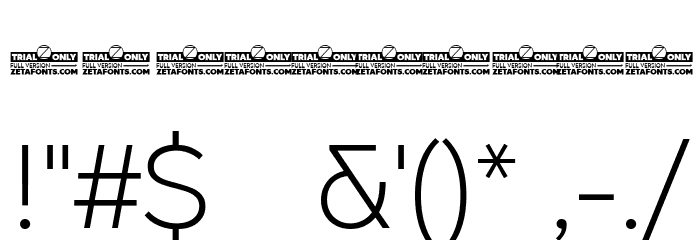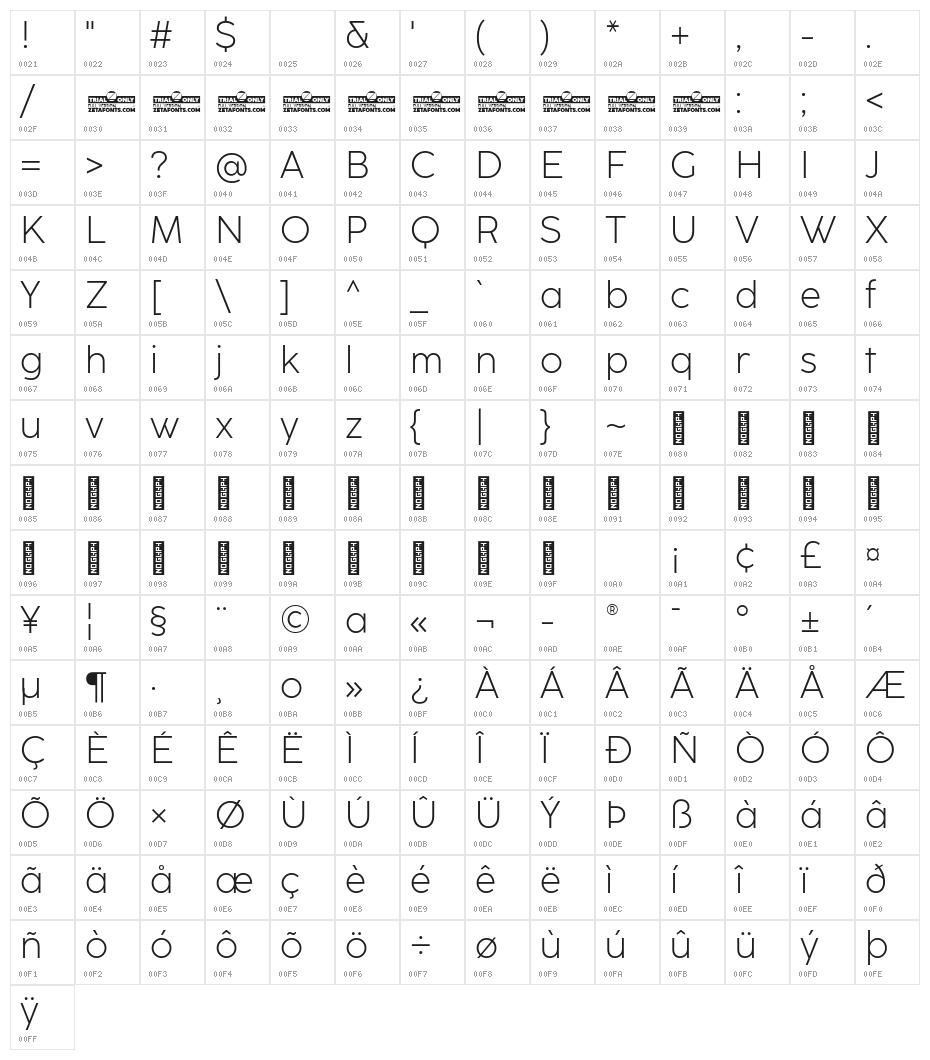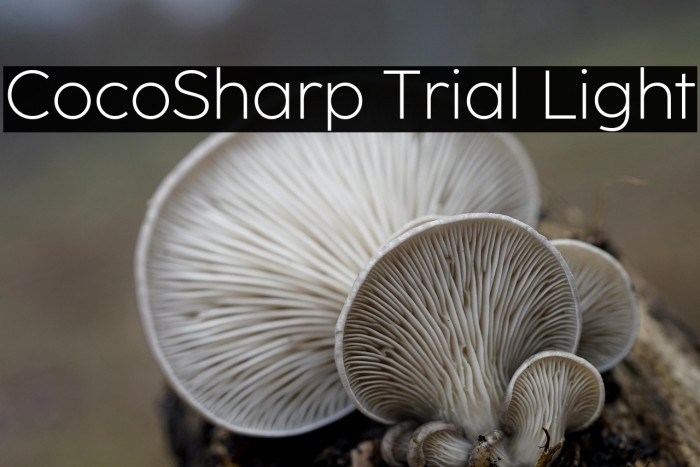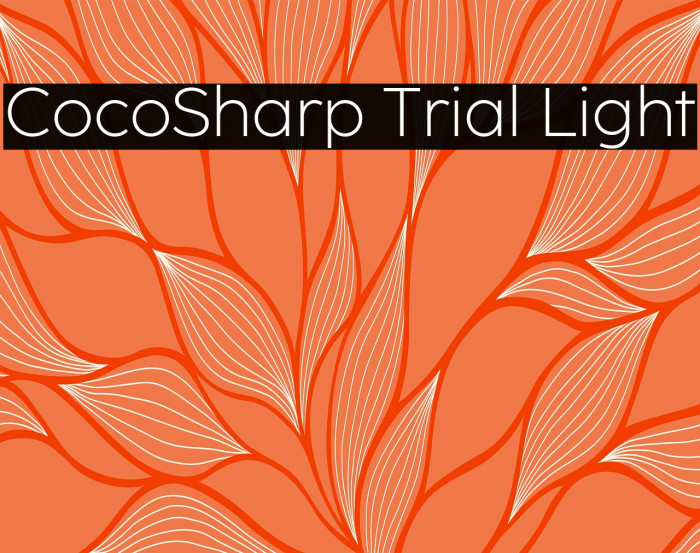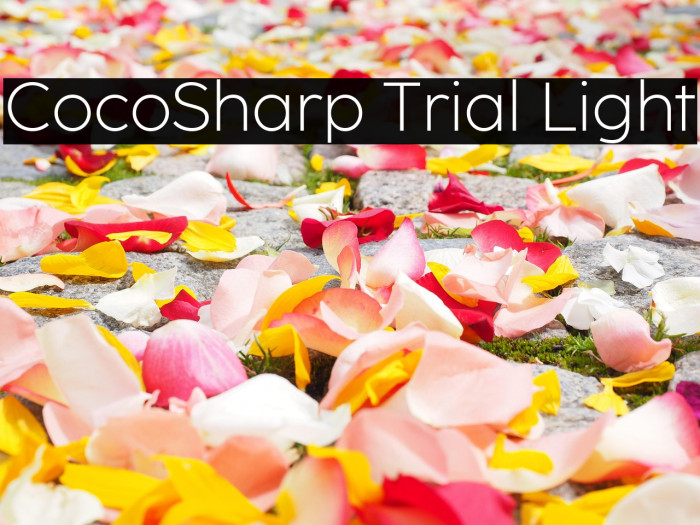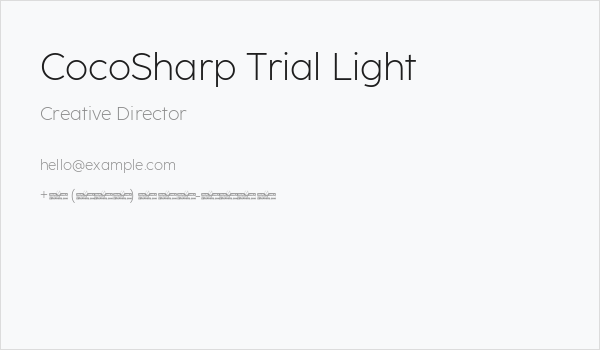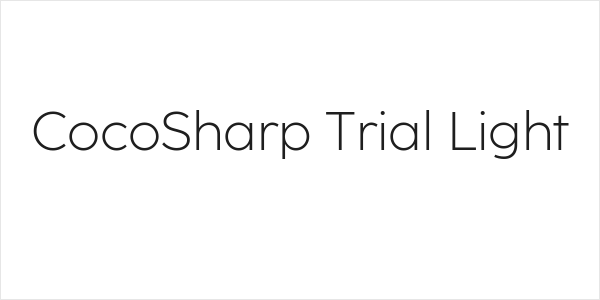
CocoSharp Trial Light Font
CocoSharp Trial Light Description
This font exhibits a clean and modern aesthetic with a minimalist approach. The characters are evenly spaced, providing a balanced and harmonious appearance. The strokes are uniform, contributing to a sleek and polished look. The uppercase and lowercase letters maintain a consistent style, enhancing readability and versatility. The numerals and special characters are designed with the same attention to detail, ensuring they blend seamlessly with the alphabetic characters. This font is ideal for projects that require a contemporary and professional touch.
| Proposed Projects | Ideal for branding, web design, corporate materials, and editorial layouts. |